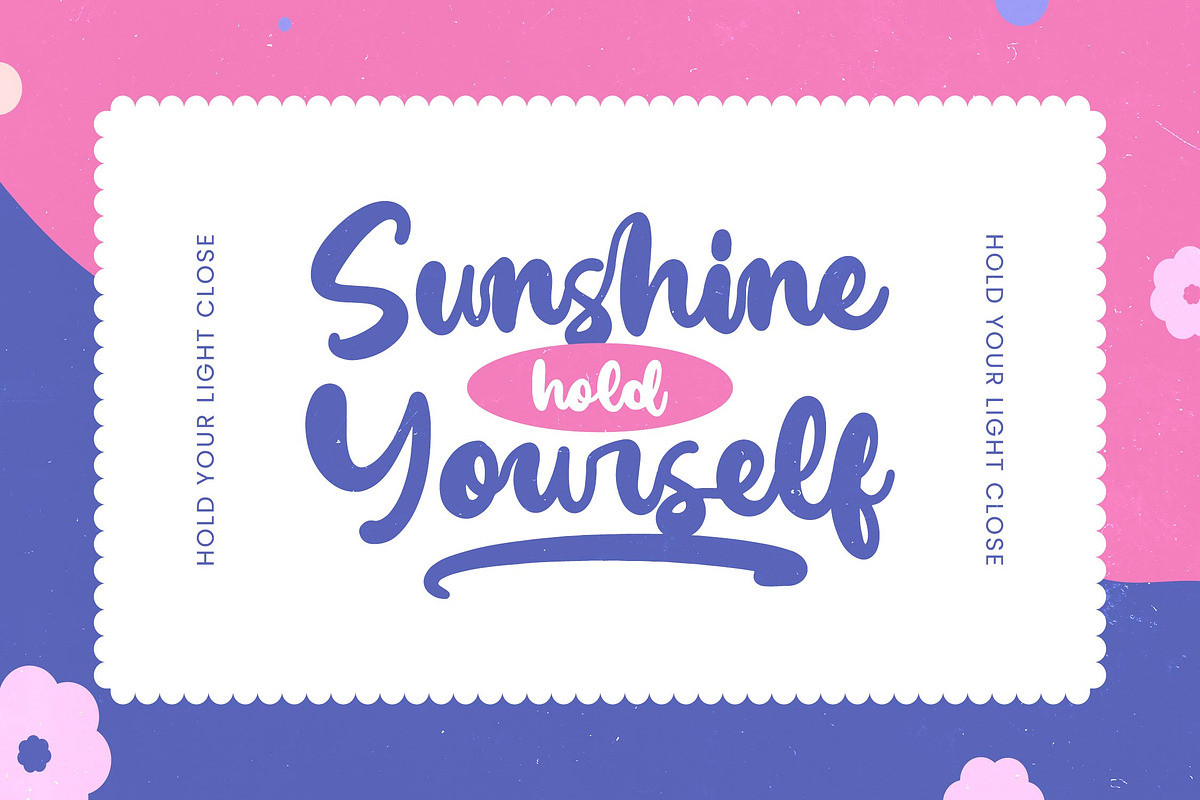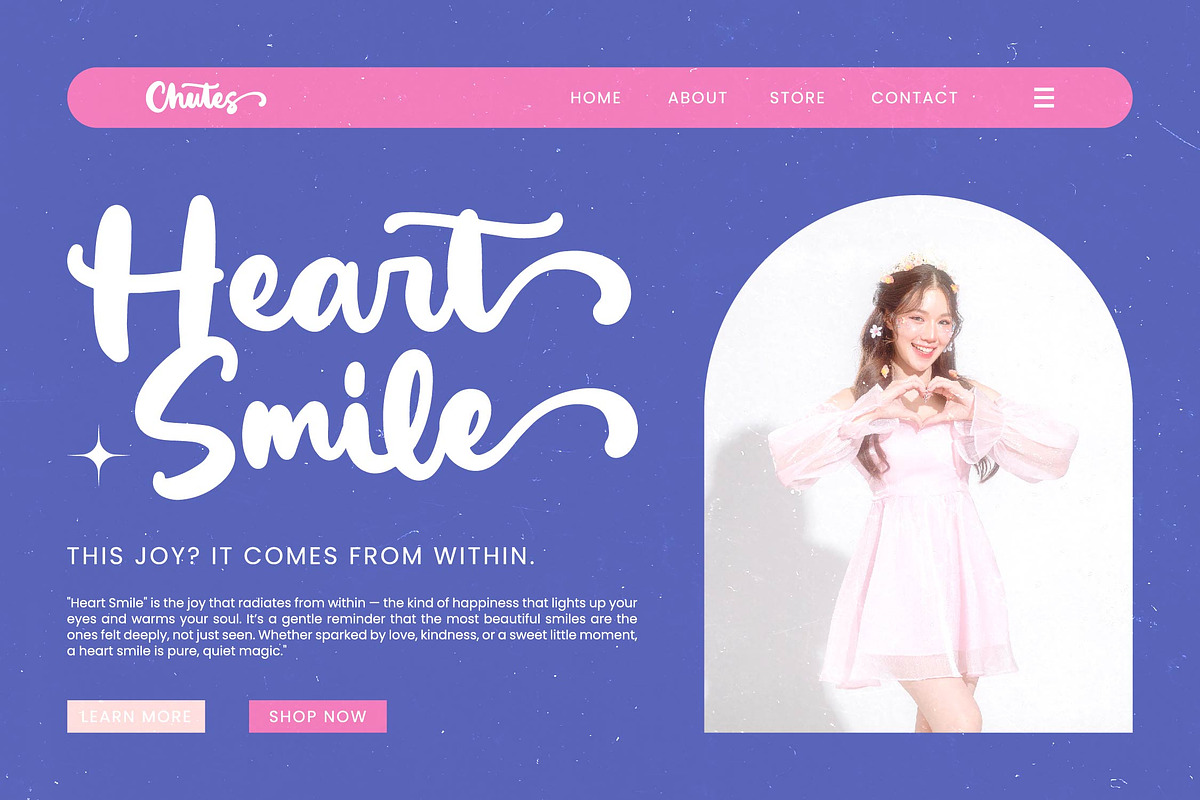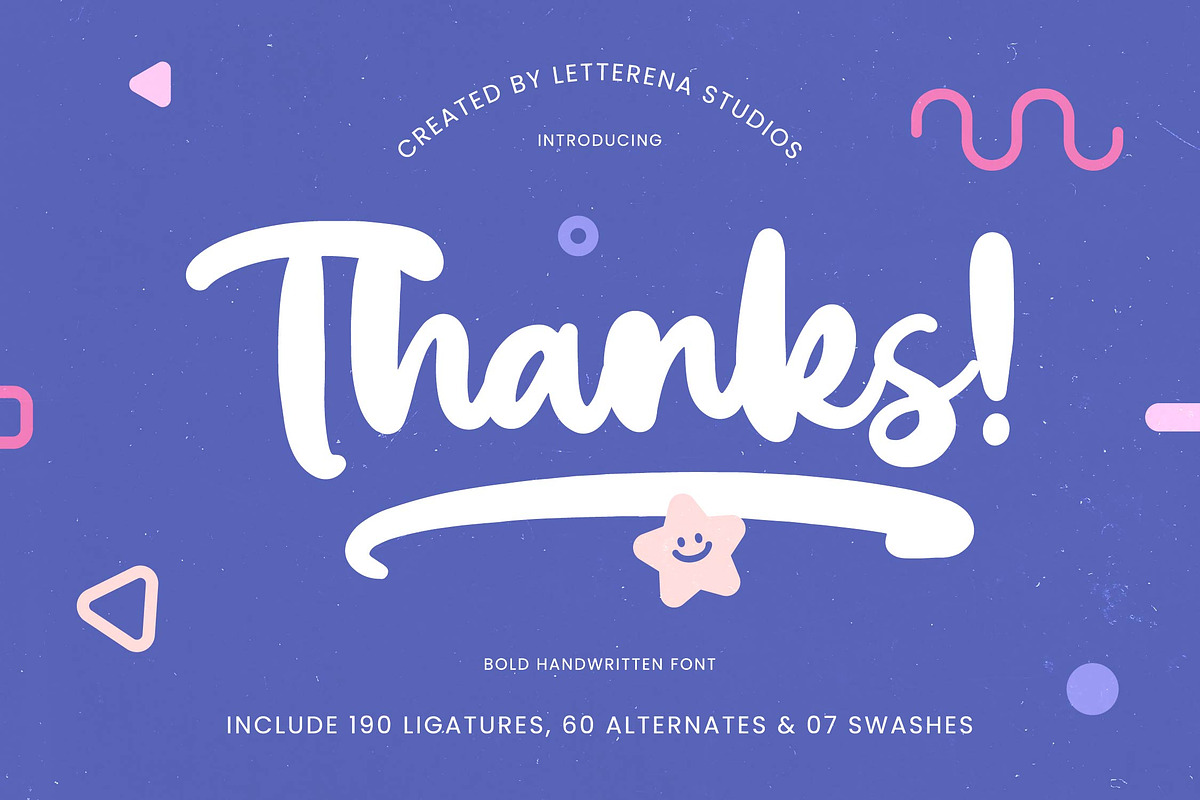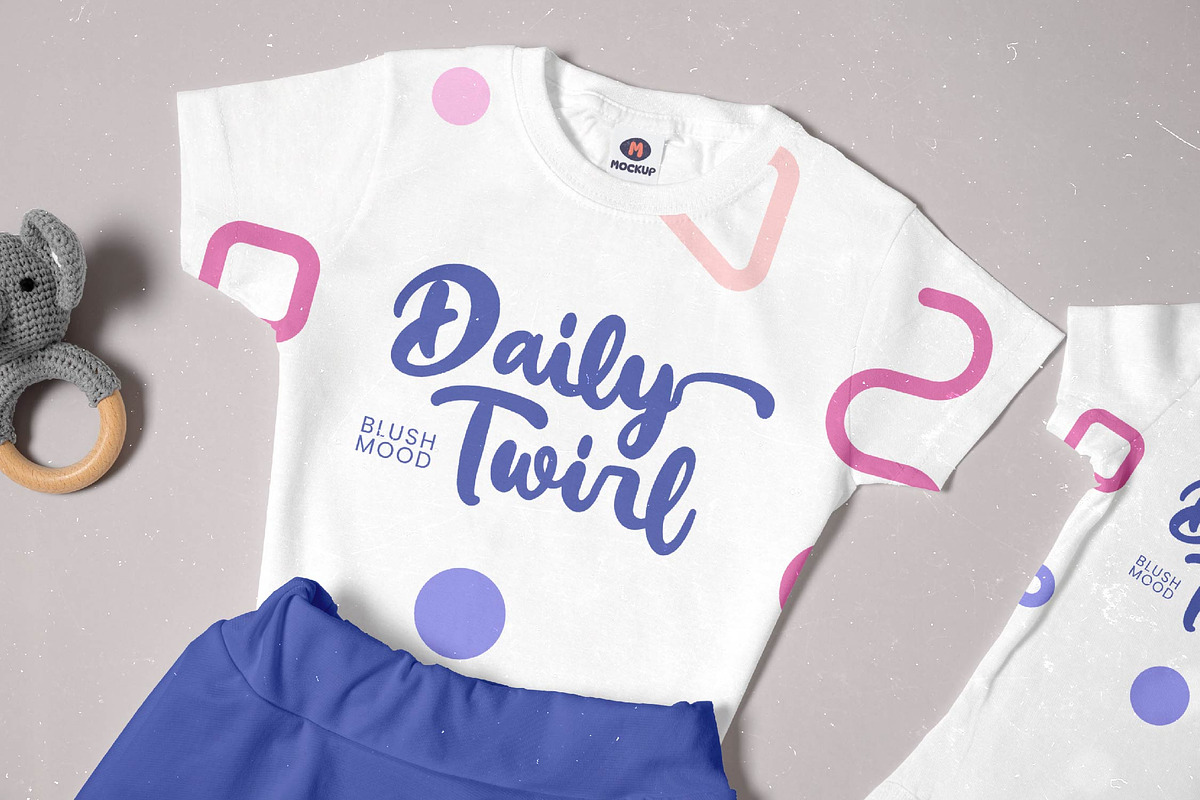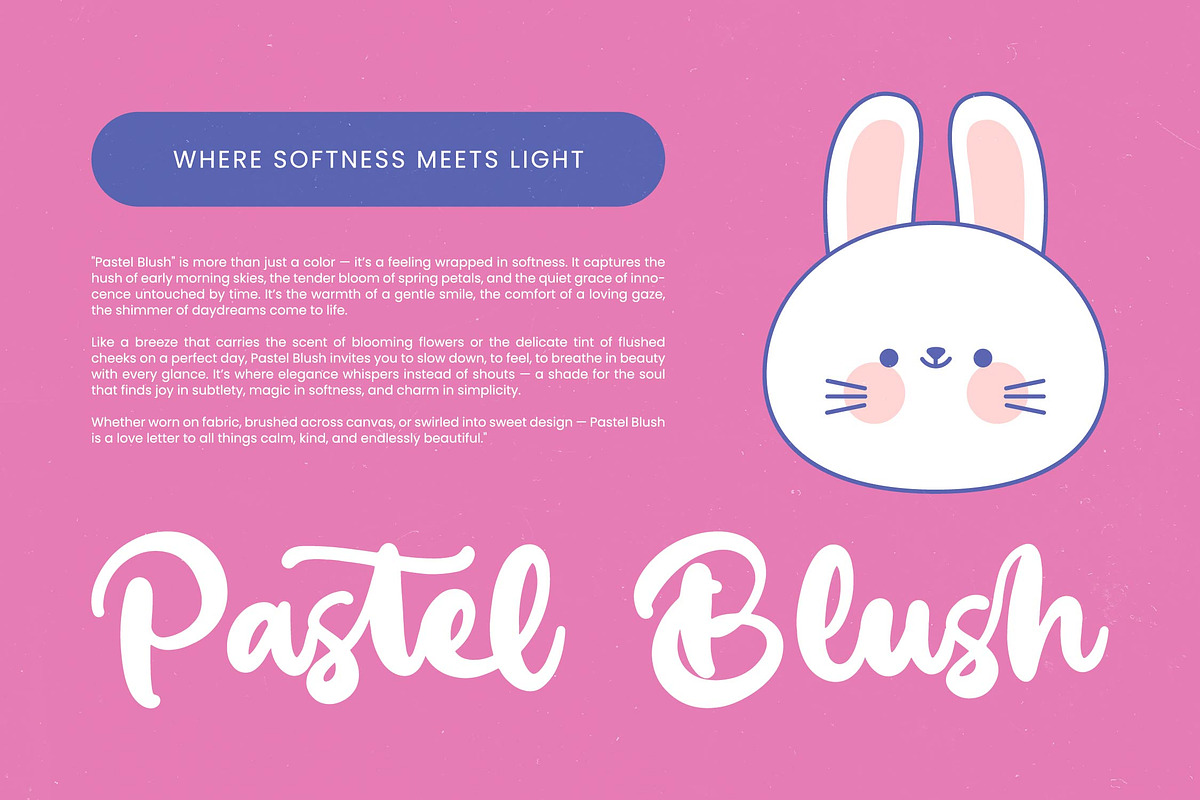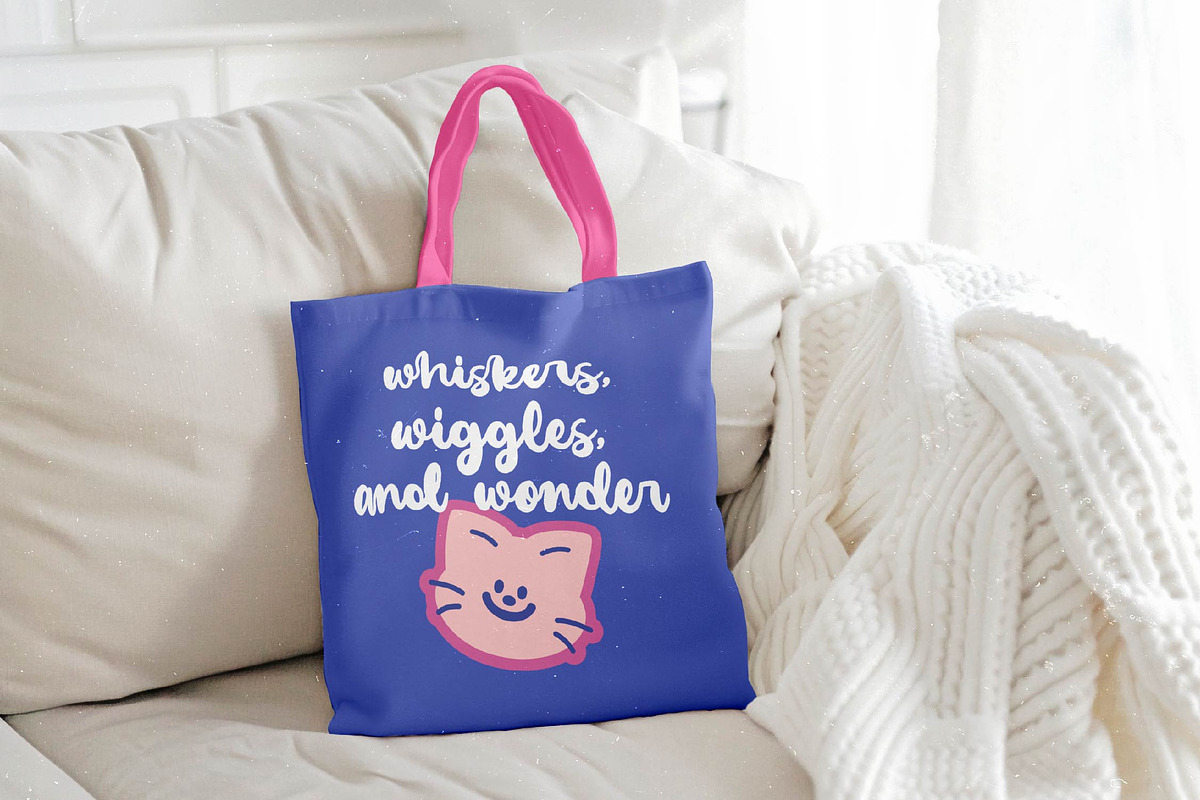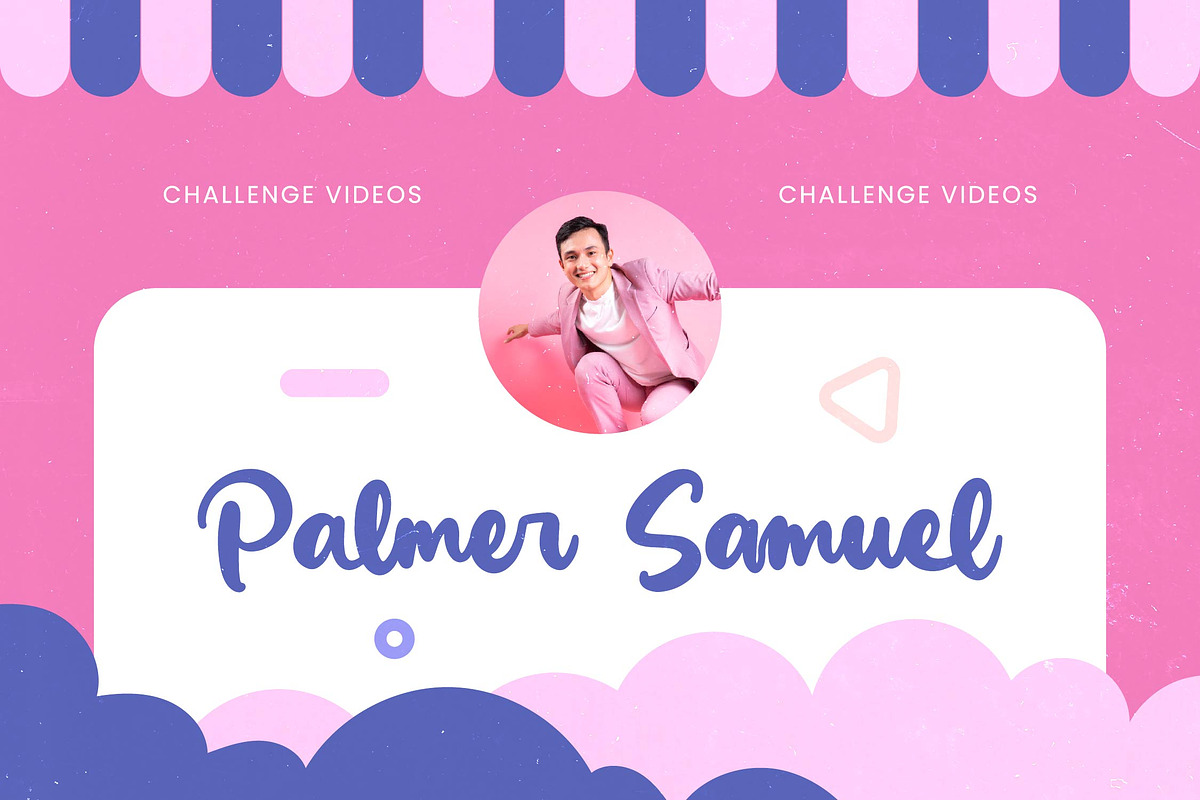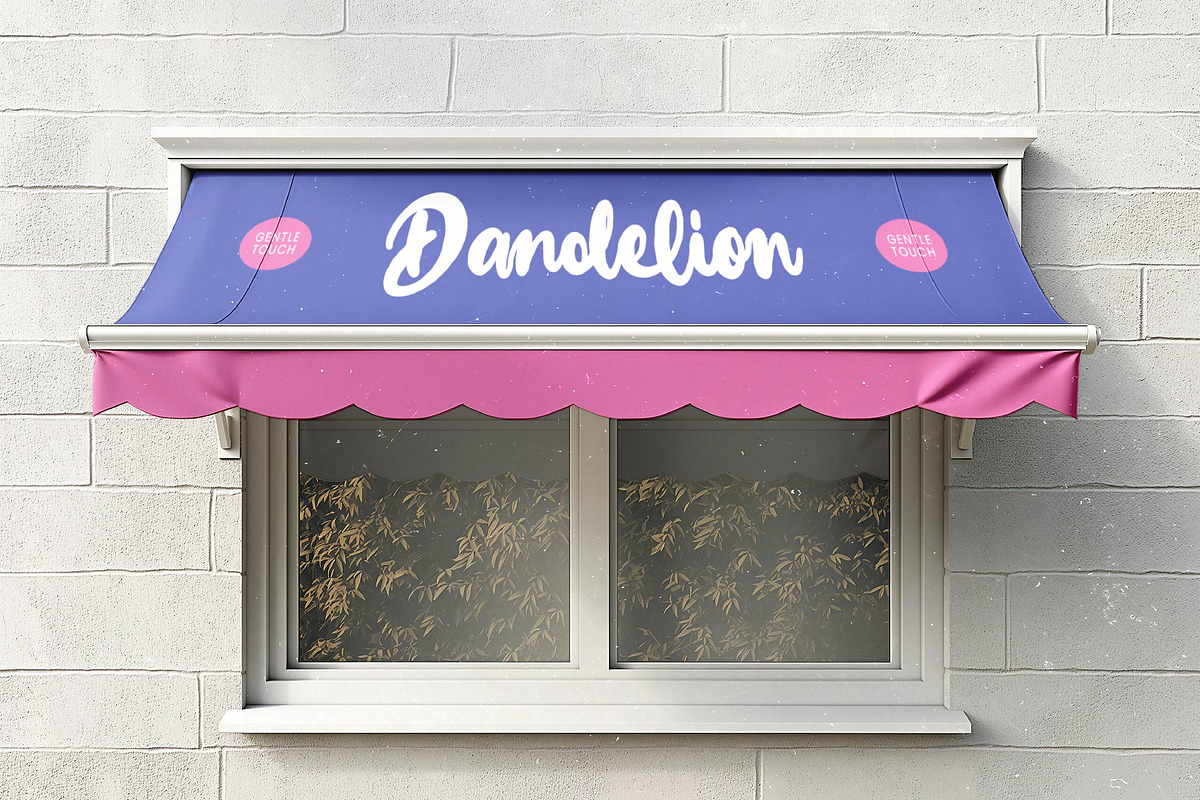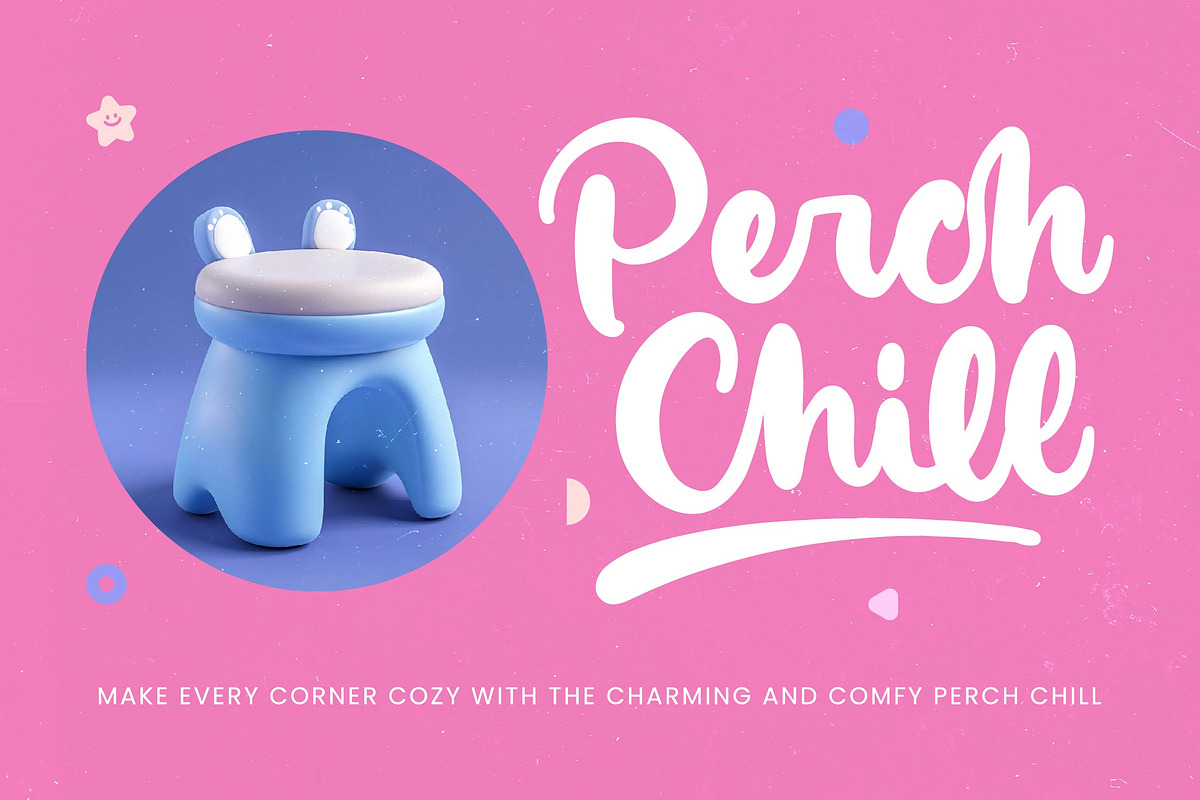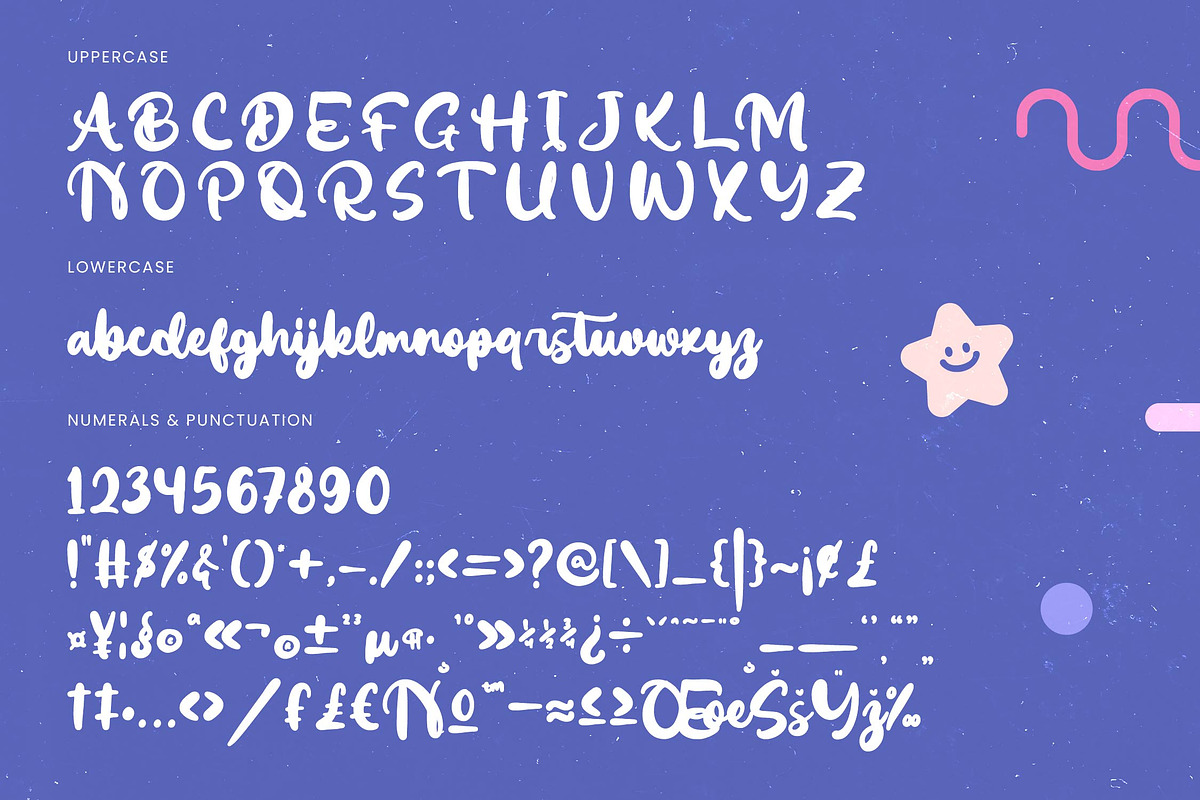
Vanila Chute Bold Handwritten Font
Vanila Chute - Bold Handwritten Font , from Letterena, is a Luxury Script font, suitable for any projects such as: logos, branding projects, homeware designs, product packaging, mugs, quotes, posters, shopping bags, t-shirts, book covers, name card, invitation cards, greeting cards, label, photography, watermark, special events, and all your other luxury and beautiful projects that need a Luxury Script taste.
- 190 Ligature 60 Alternate & 07 Swashes